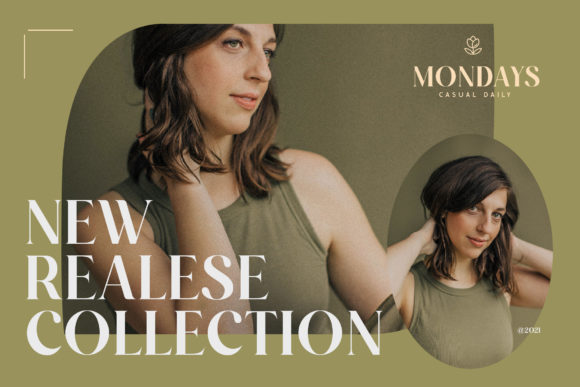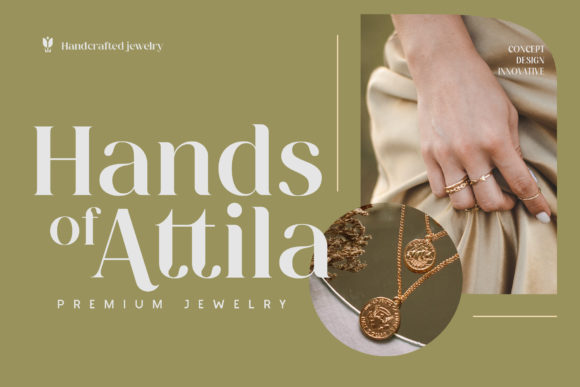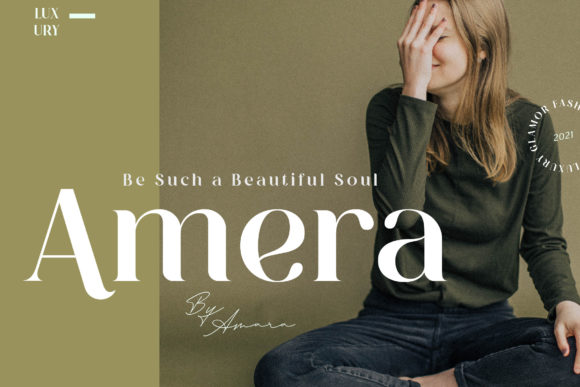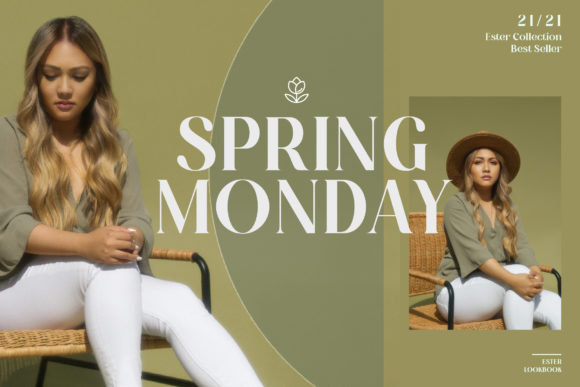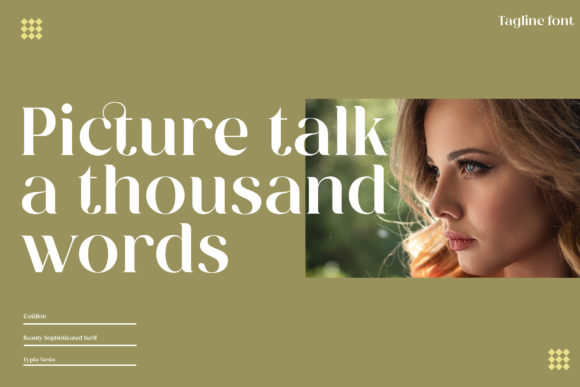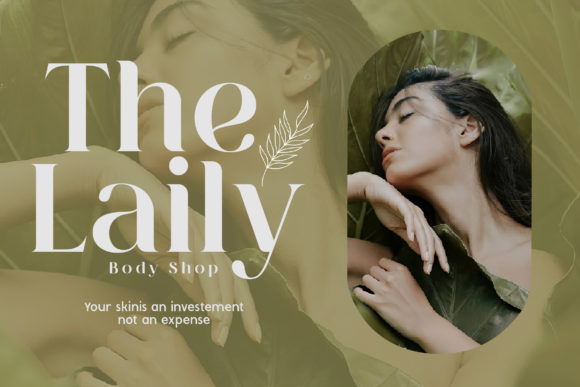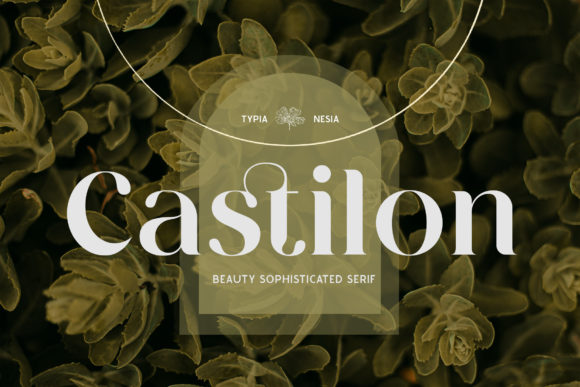
Introducing Castilon Font: The Perfect Blend of Classic and Modern
Are you looking for a font that exudes elegance, sophistication, and a touch of modernity? Look no further than Castilon Font, an authentic and bold serif font that is sure to elevate your design projects to new heights. With its classy calligraphic influences and fresh, contemporary feel, Castilon is the perfect choice for designers and crafters who want to add a touch of luxury to their work.
The Story Behind Castilon Font
Castilon Font is a carefully crafted typeface that draws inspiration from traditional calligraphy. Its bold, serif lines and elegant curves evoke a sense of nostalgia and classic sophistication, while its modern twists and clean lines keep it feeling fresh and contemporary. Whether you’re working on a branding project, a wedding invitation, or a packaging design, Castilon Font is the perfect choice for anyone looking to add a touch of elegance and refinement.
Key Features of Castilon Font
So what sets Castilon Font apart from other serif fonts on the market? Here are just a few of its key features:
- Authentic and bold serif font: Castilon Font features bold, serif lines that give it a classic, timeless feel.
- Classy calligraphic influences: The font’s elegant curves and refined lines evoke a sense of traditional calligraphy.
- Contemporary and fresh feel: Despite its classic influences, Castilon Font feels modern and fresh, making it perfect for a wide range of design projects.
- Highly versatile: Castilon Font can be used for everything from headings and titles to body text and captions.
Why Choose Castilon Font?
So why should you choose Castilon Font for your next design project? Here are just a few reasons:
- Add a touch of elegance: Castilon Font is the perfect choice for anyone looking to add a touch of luxury and sophistication to their design work.
- Stand out from the crowd: With its bold, serif lines and elegant curves, Castilon Font is sure to help your design project stand out from the crowd.
- Easy to read: Despite its bold lines, Castilon Font is highly legible, making it perfect for use in body text and captions.
- Highly versatile: Castilon Font can be used for a wide range of design projects, from branding and advertising to packaging and editorial design.
How to Use Castilon Font
So how can you use Castilon Font in your design work? Here are a few ideas to get you started:
- Branding and logos: Use Castilon Font to create a bold, eye-catching logo that exudes elegance and sophistication.
- Wedding invitations: Add a touch of luxury to your wedding invitations with Castilon Font’s elegant, refined lines.
- Packaging design: Use Castilon Font to add a touch of sophistication to your packaging design, whether you’re working on a product label or a brochure.
- Editorial design: Castilon Font is perfect for use in editorial design, whether you’re working on a magazine, newspaper, or blog.
In conclusion, Castilon Font is a truly exceptional serif font that is sure to elevate your design projects to new heights. With its bold, serif lines, elegant curves, and fresh, contemporary feel, Castilon is the perfect choice for designers and crafters who want to add a touch of luxury and sophistication to their work. So why wait? Fall in love with Castilon Font today and bring your projects to the highest levels!